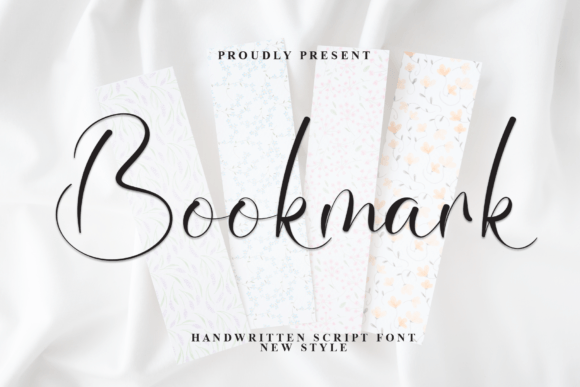
The Elegance of Bookmark Font: A Designer’s Delight
I’ll never forget the time I was working on a wedding invitation project, and my client asked for a font that would make their special day feel like a fairytale. I scoured the internet, tried out countless fonts, but nothing seemed quite right. That was until I stumbled upon Bookmark Font. Its elegant, cursive strokes and beautiful ligatures instantly captured the essence of romance and sophistication. In this article, I’ll share my love for Bookmark Font, its features, and how to make the most of it in your designs.
- ✨ Elegant and stylish script font perfect for wedding invitations, thank you cards, and more
- ✅ Beautifully crafted ligatures and glyphs for a unique touch
- 💫 Works wonders for adding a handwritten feel to logos, business cards, and quotes
- 🎨 Highly versatile and can be used for a variety of design projects
While Bookmark Font is a stunning addition to any design, there are a few things to keep in mind:
- ⚠️ May not be suitable for body text due to its script nature
- 🤔 Some characters may require manual adjustment for optimal spacing
- Experiment with OpenType features like ligatures and stylistic alternates to add a personal touch
The Story Behind Bookmark Font
Bookmark Font was designed with the intention of capturing the elegance and romance of handwritten script. Its creator aimed to craft a font that would be perfect for special occasions, like weddings and anniversaries. With its beautiful ligatures and stylish strokes, Bookmark Font has become a favorite among designers and crafters alike.
Q: What type of projects is Bookmark Font best suited for?
A: Bookmark Font is ideal for projects that require a touch of elegance and sophistication, such as wedding invitations, thank you cards, quotes, and logos.
Q: Can I use Bookmark Font for body text?
A: While Bookmark Font is a beautiful font, it’s not recommended for body text due to its script nature. It’s best used for headings, titles, and short paragraphs.
Q: Does Bookmark Font support OpenType features?
A: Yes, Bookmark Font supports OpenType features like ligatures, glyphs, and stylistic alternates, allowing you to add a unique touch to your designs.